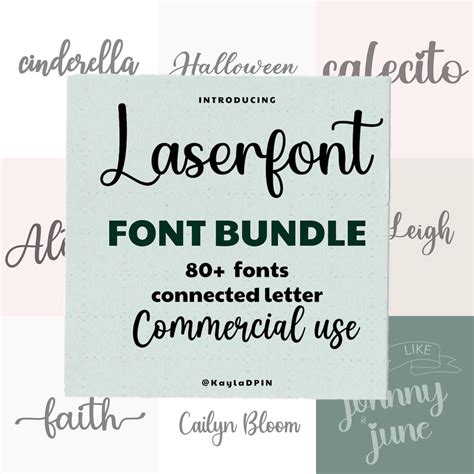
Free Connected Fonts for Laser Cutting Maker Design Lab
Connected Fonts For Laser Cutting. Check out these 34 connected fonts for laser cutting from maker design lab. Web there are not many completely connected free fonts available but often even starting with a partly connected font can save a lot.
Web a collection of fonts where the letters are linked together so that after cutting a word is one piece. Check out these 34 connected fonts for laser cutting from maker design lab. Web there are not many completely connected free fonts available but often even starting with a partly connected font can save a lot.
Web there are not many completely connected free fonts available but often even starting with a partly connected font can save a lot. Check out these 34 connected fonts for laser cutting from maker design lab. Web there are not many completely connected free fonts available but often even starting with a partly connected font can save a lot. Web a collection of fonts where the letters are linked together so that after cutting a word is one piece.